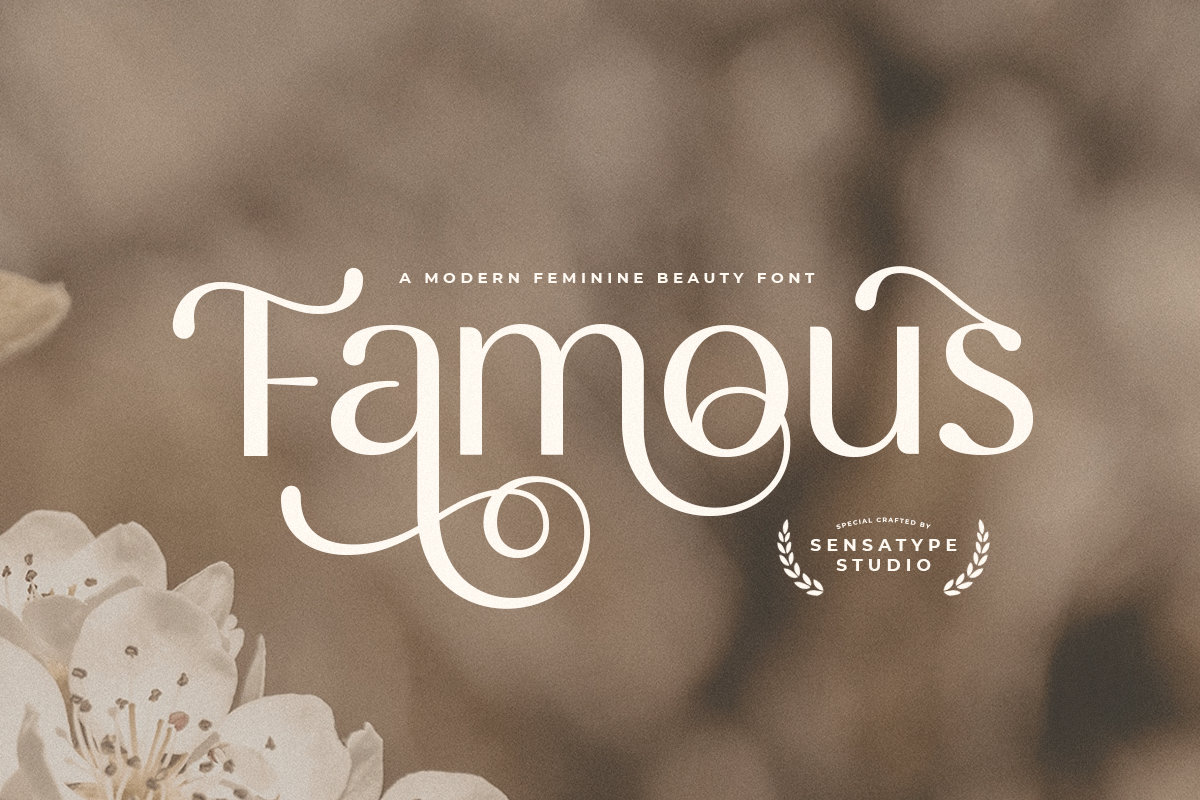
Famous - Modern Feminine Beauty Font Free Download
Famous - Modern Feminine Beauty Font Free Download is a chic and sophisticated typeface designed to evoke a sense of modern elegance and feminine allure. With its graceful curves, refined serifs, and balanced letterforms, Famous is the perfect choice for beauty brands, fashion editorials, magazines, social media graphics, and any creative project that demands a touch of modern sophistication.
Crafted with care to combine contemporary style with timeless elegance, Famous - Modern Feminine Beauty Font Free Download features a full set of uppercase and lowercase letters, numerals, and punctuation. Its versatile design ensures excellent readability while adding a distinctive feminine flair to your projects.